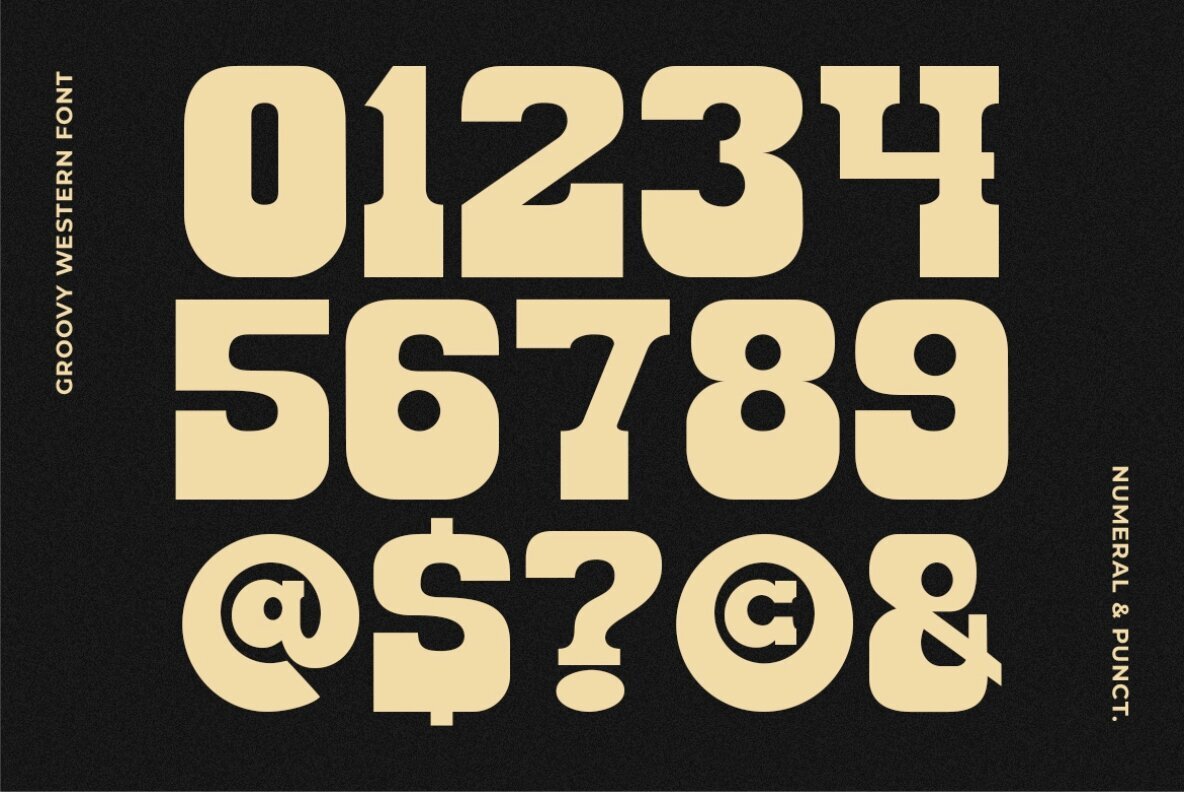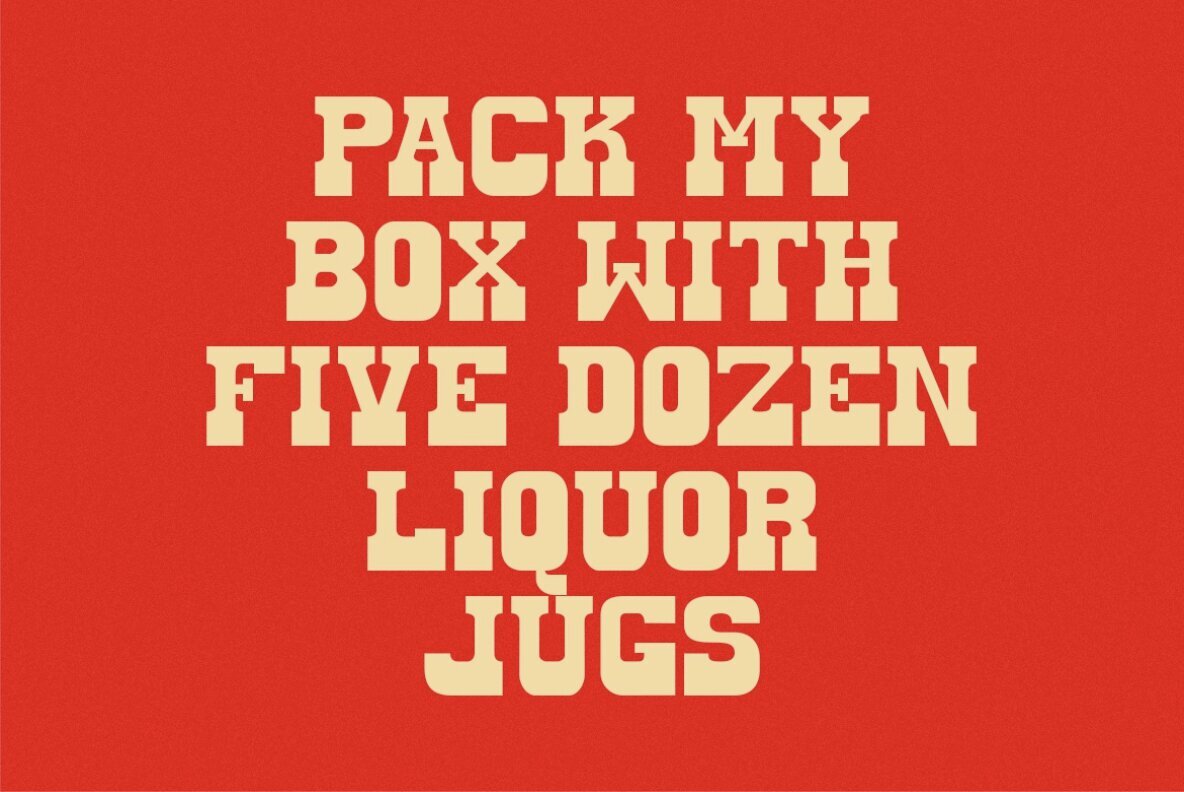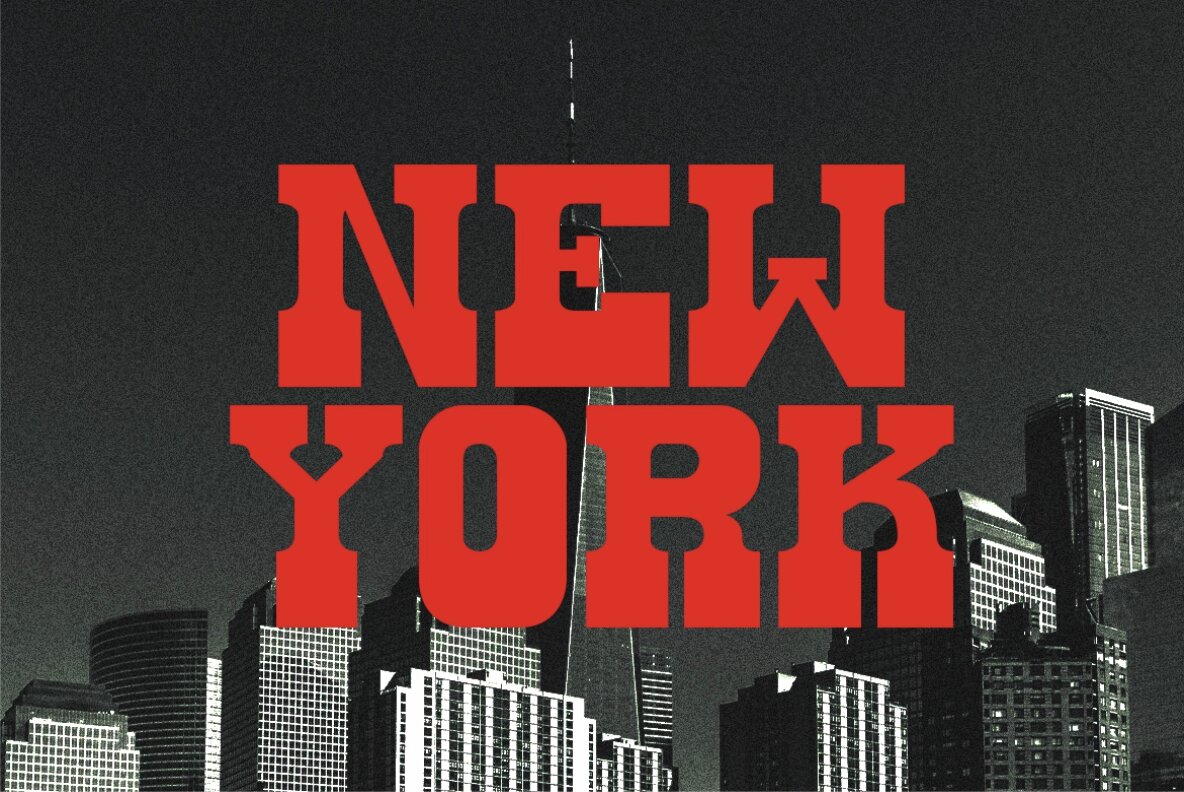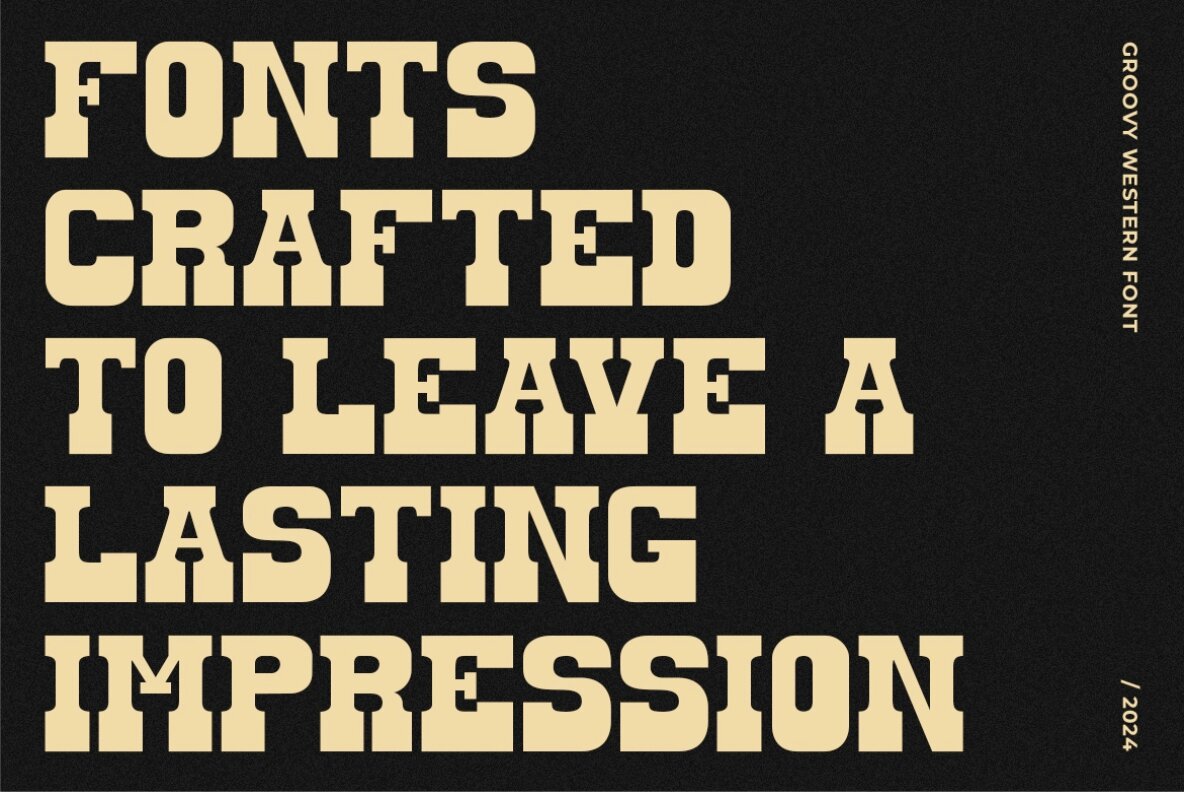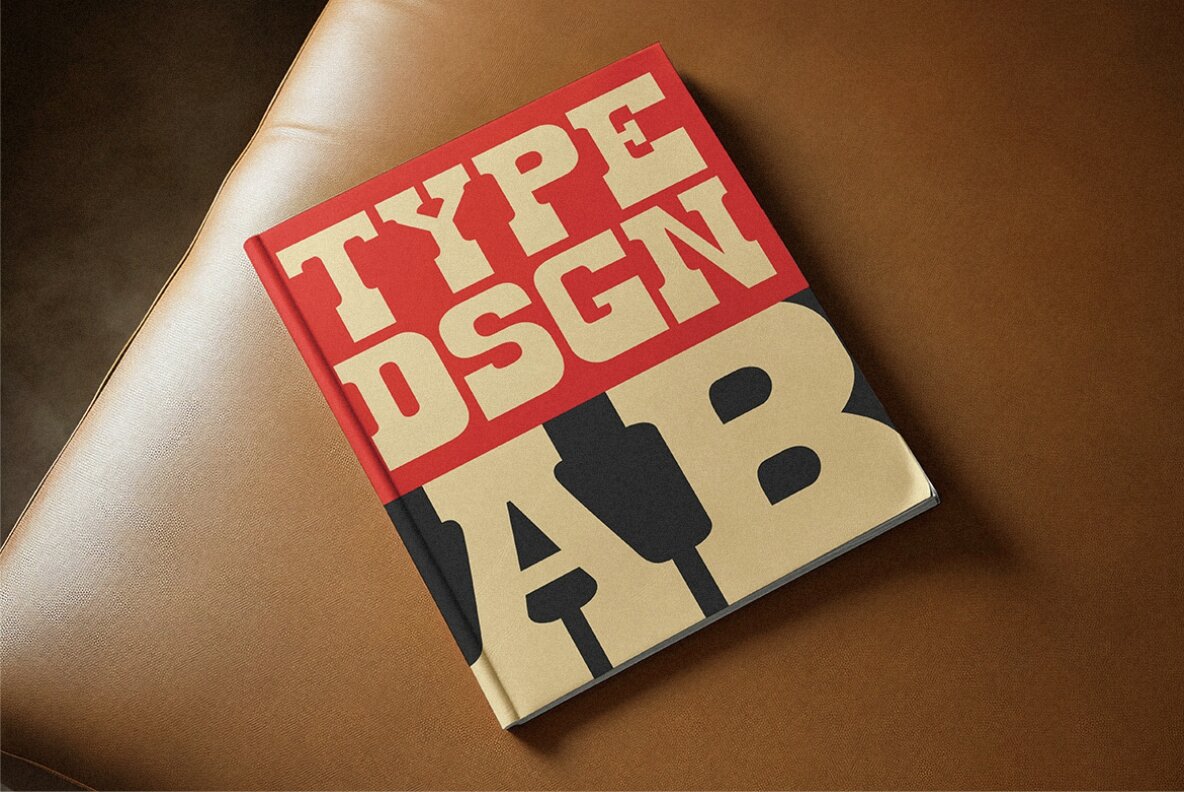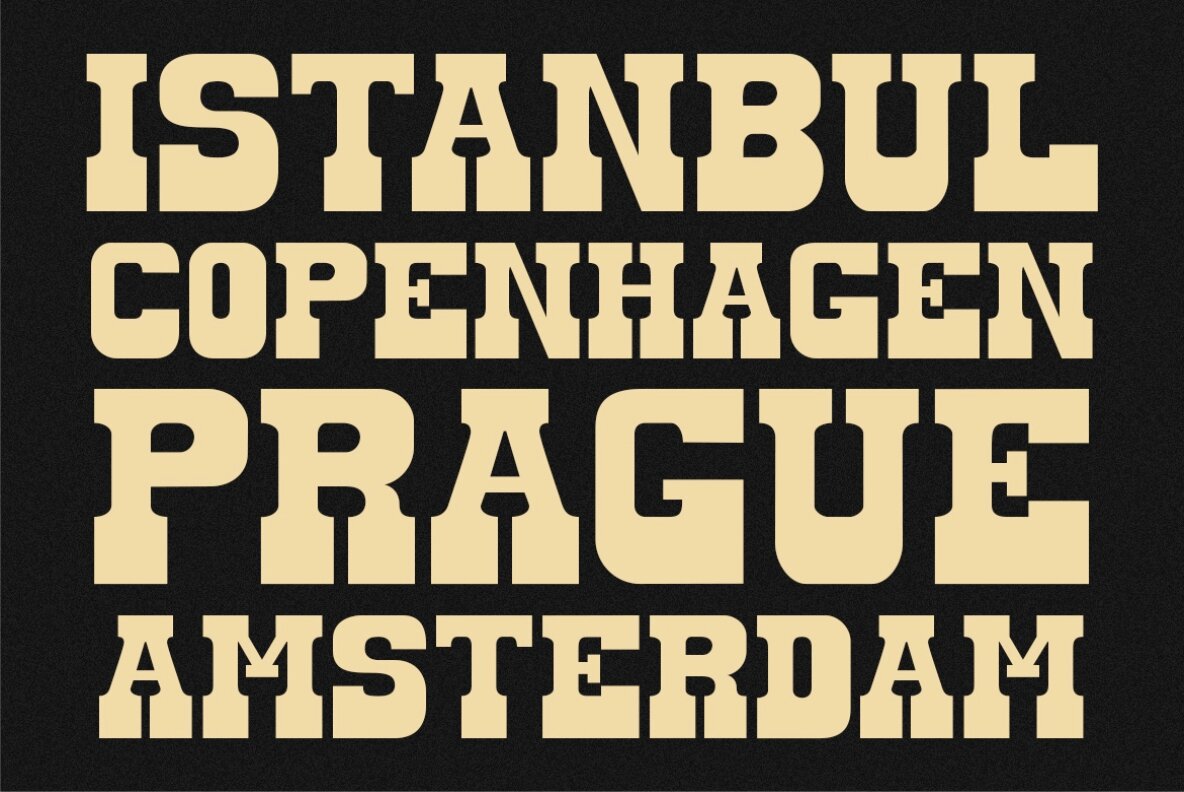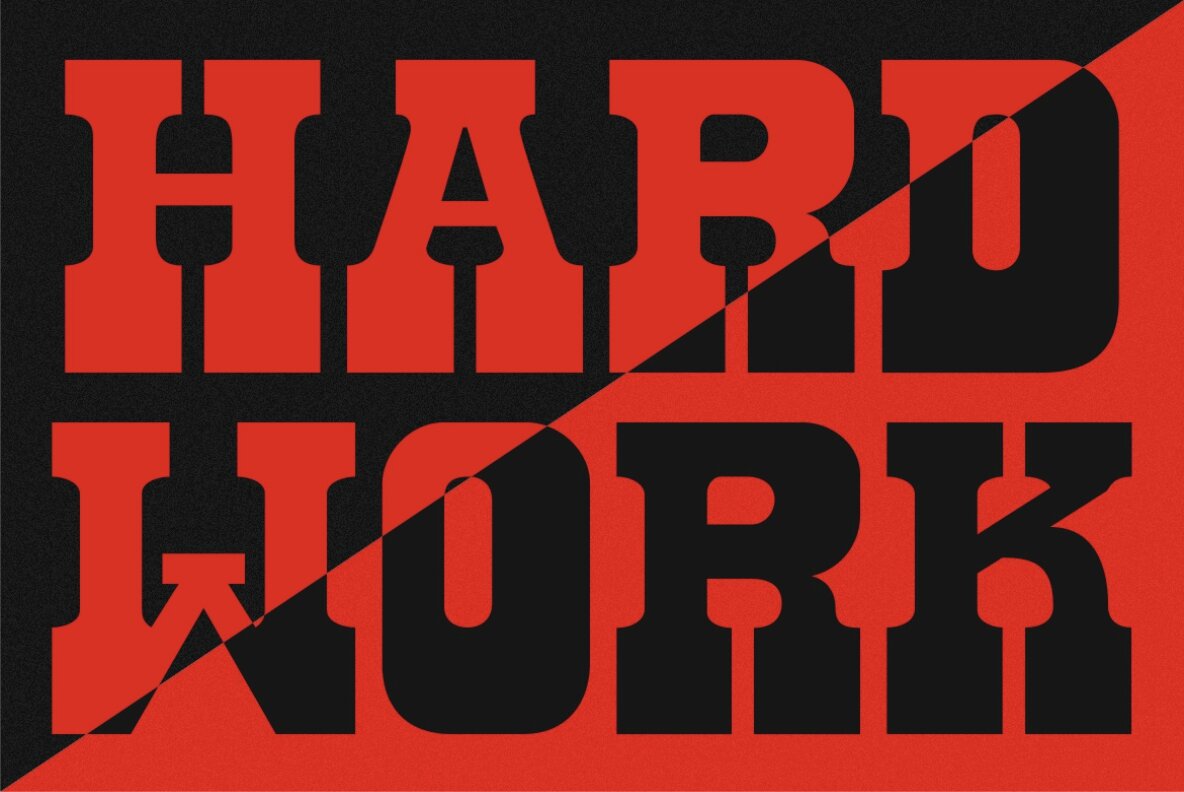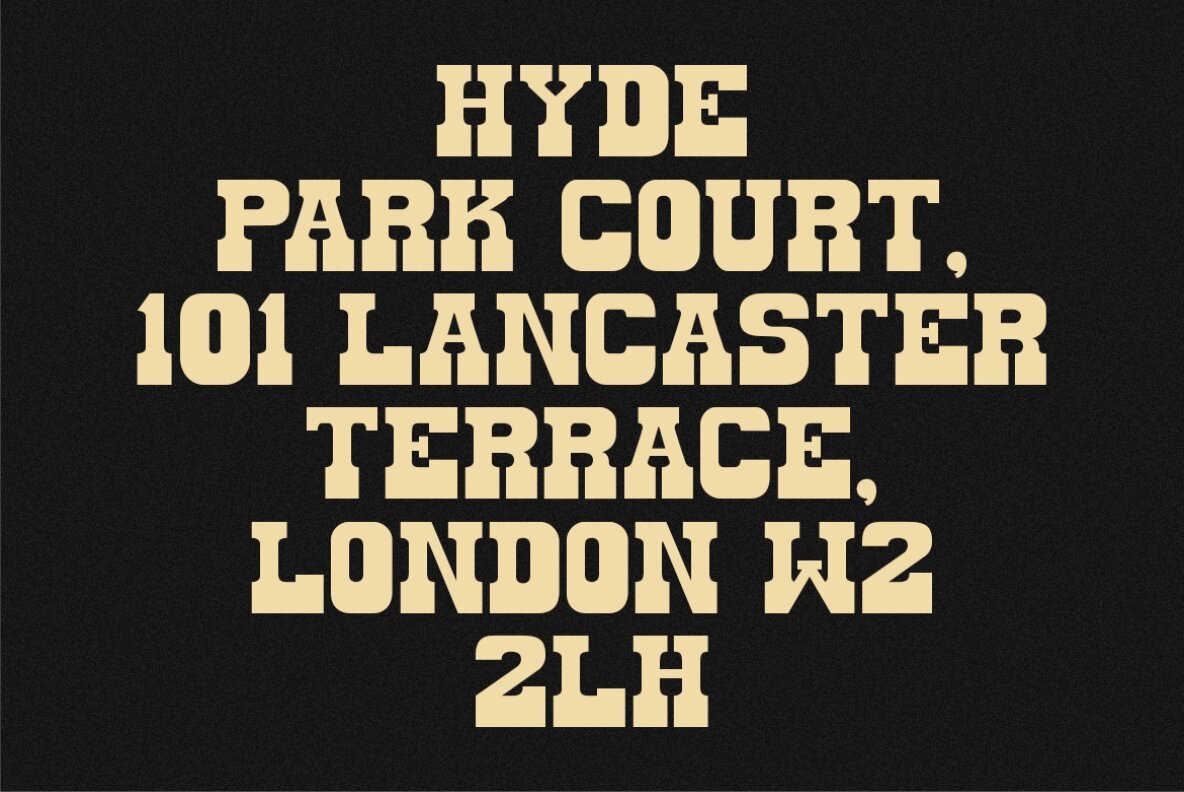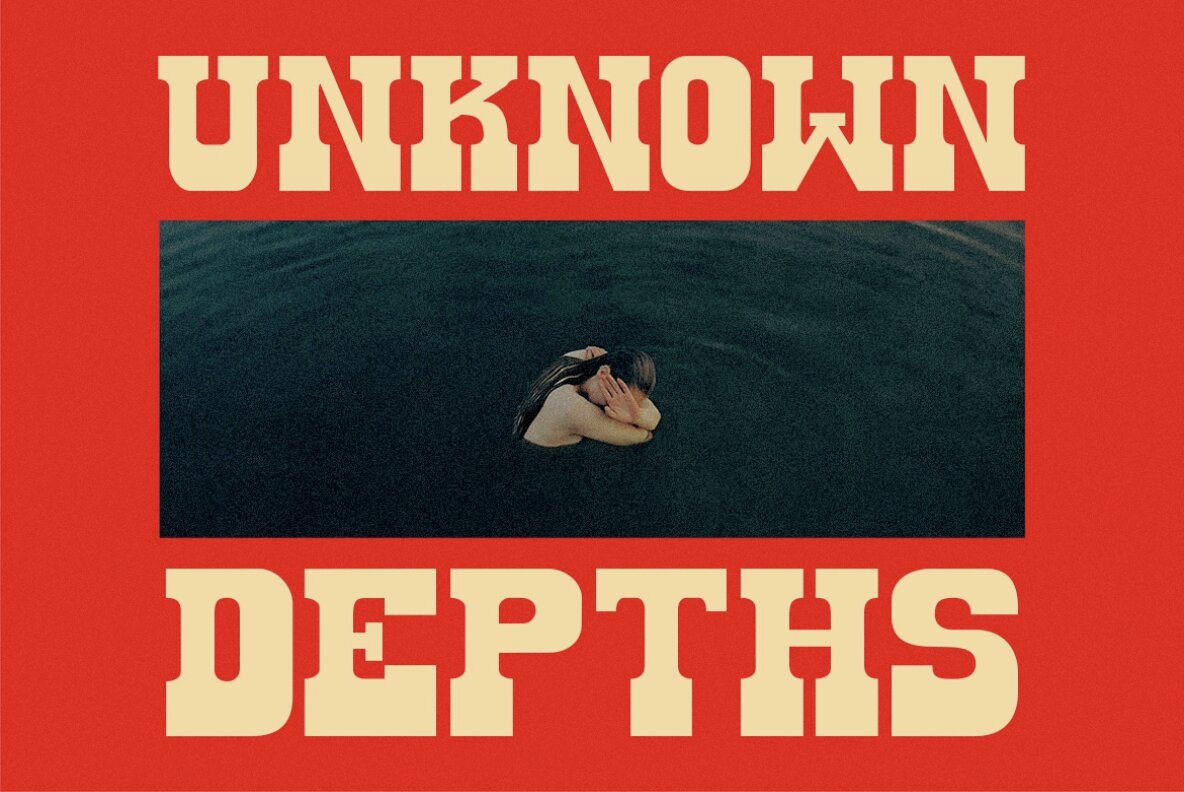
Groovy Western Font
Groovy Western
Groovy Western is a bold slab serif font that merges vintage typewriting styles with a modern Western flair. Featuring strong, thick lines and robust serifs, this font delivers a bold presence that exudes both ruggedness and sophistication. Ideal for headlines, logos, or branding, Groovy Western stands out with its distinctive retro charm.
The font includes a comprehensive set of characters, featuring uppercase and lowercase letters, numerals, punctuation, and multilingual support. This versatility ensures that Groovy Western can be seamlessly integrated into a wide range of design projects, adding a unique and captivating style.